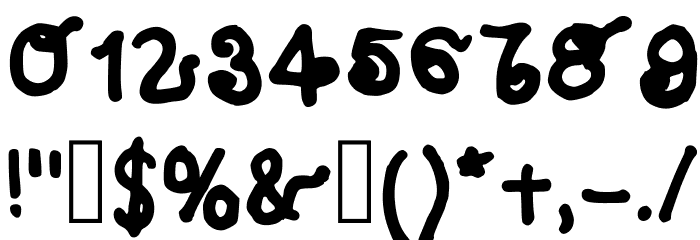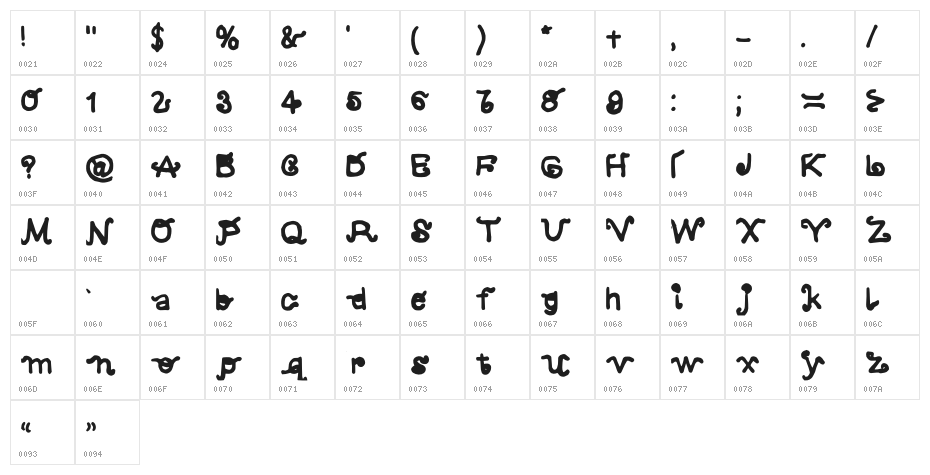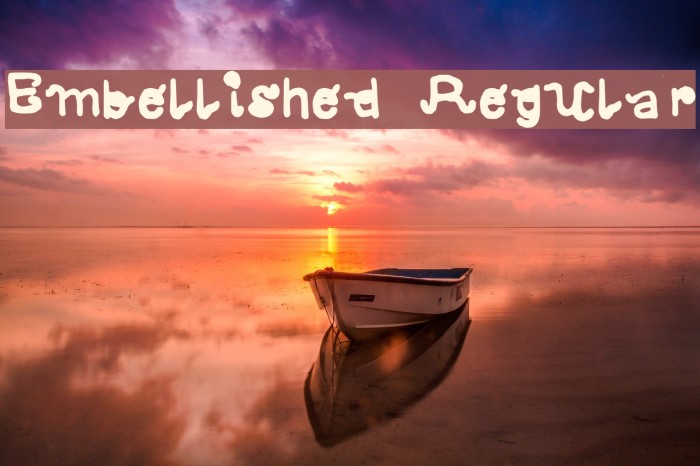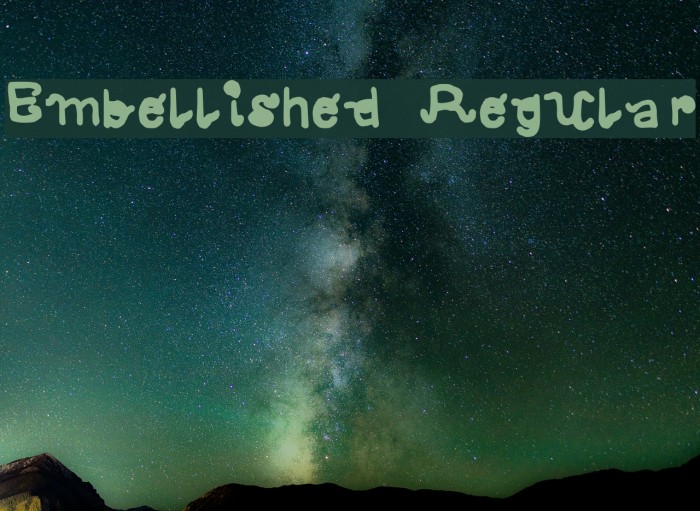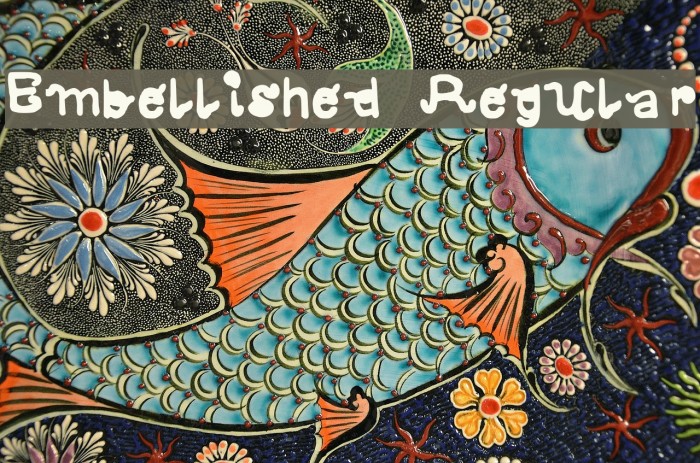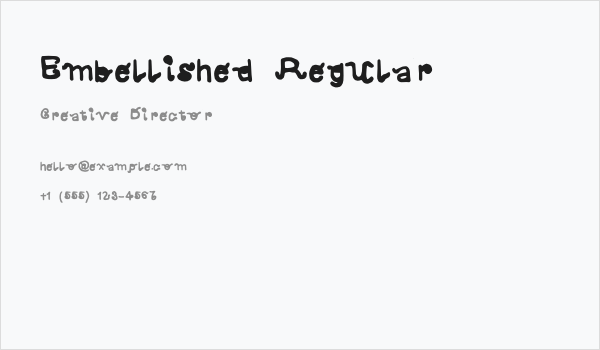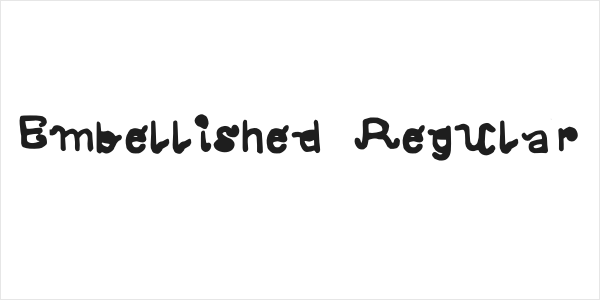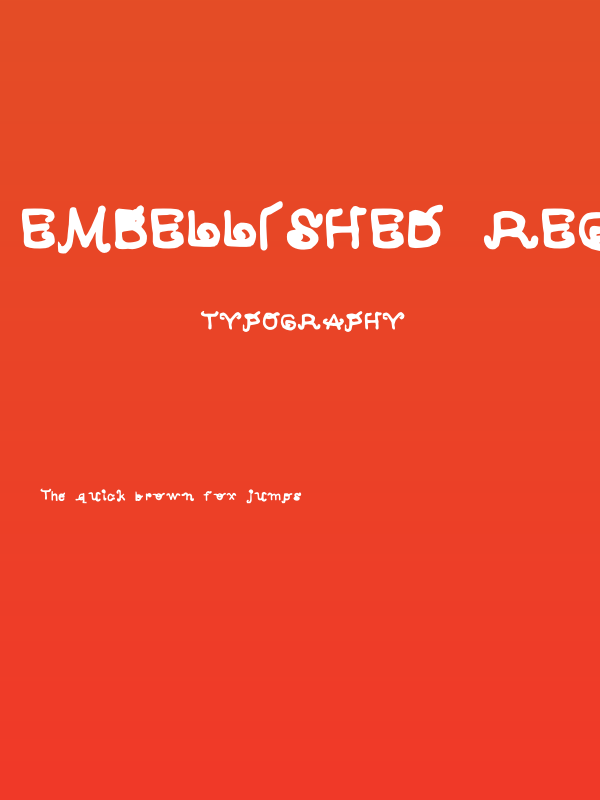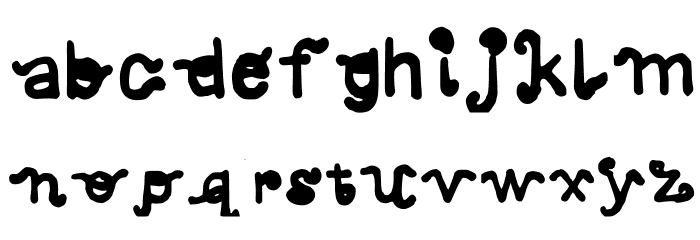
Embellished Regular Font
Embellished Regular Description
This font features a playful and whimsical design with a bold and irregular structure. Each character is uniquely crafted with exaggerated curves and loops, giving it a hand-drawn appearance. The strokes are thick and uneven, adding to its quirky and artistic style. The uppercase letters are particularly distinctive, with some characters incorporating unexpected twists and turns. The lowercase letters maintain a consistent style, complementing the uppercase with their own set of creative flourishes. Numbers and special characters follow the same artistic theme, ensuring a cohesive look across all elements.
| Proposed Projects | Ideal for children's books, creative posters, playful branding, and artistic projects. |